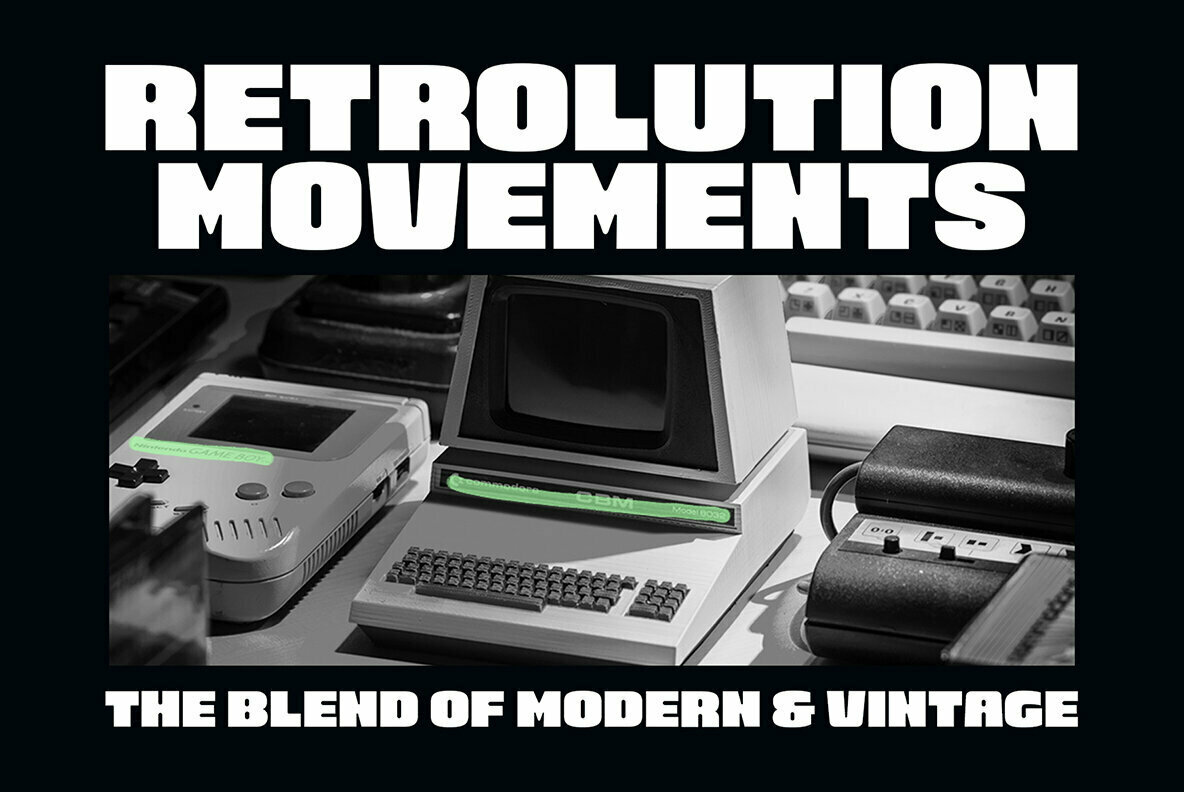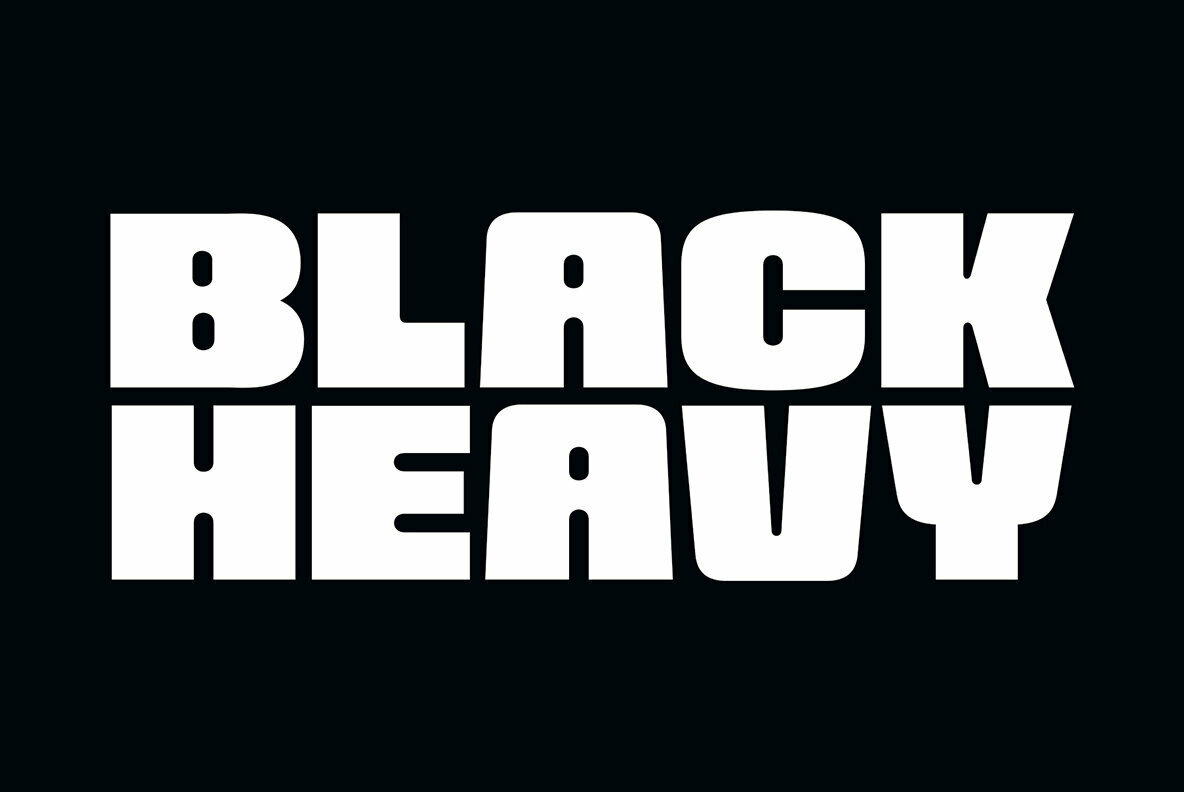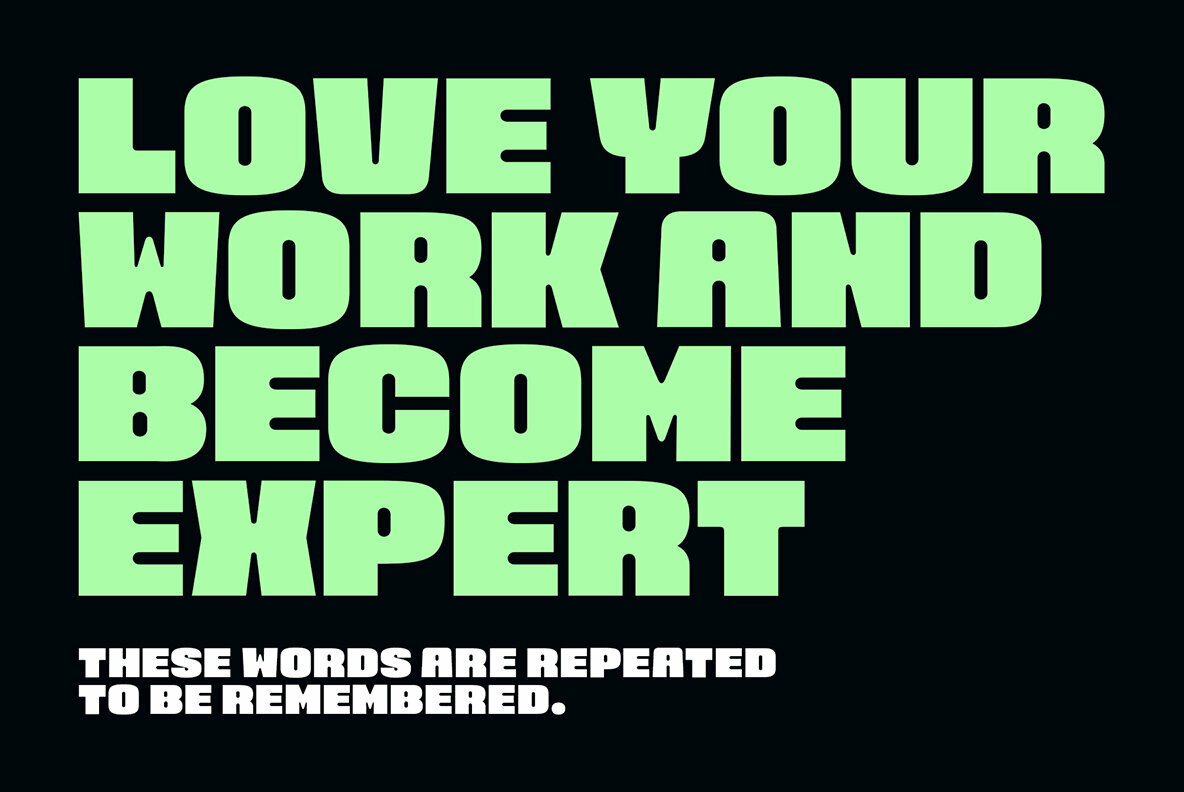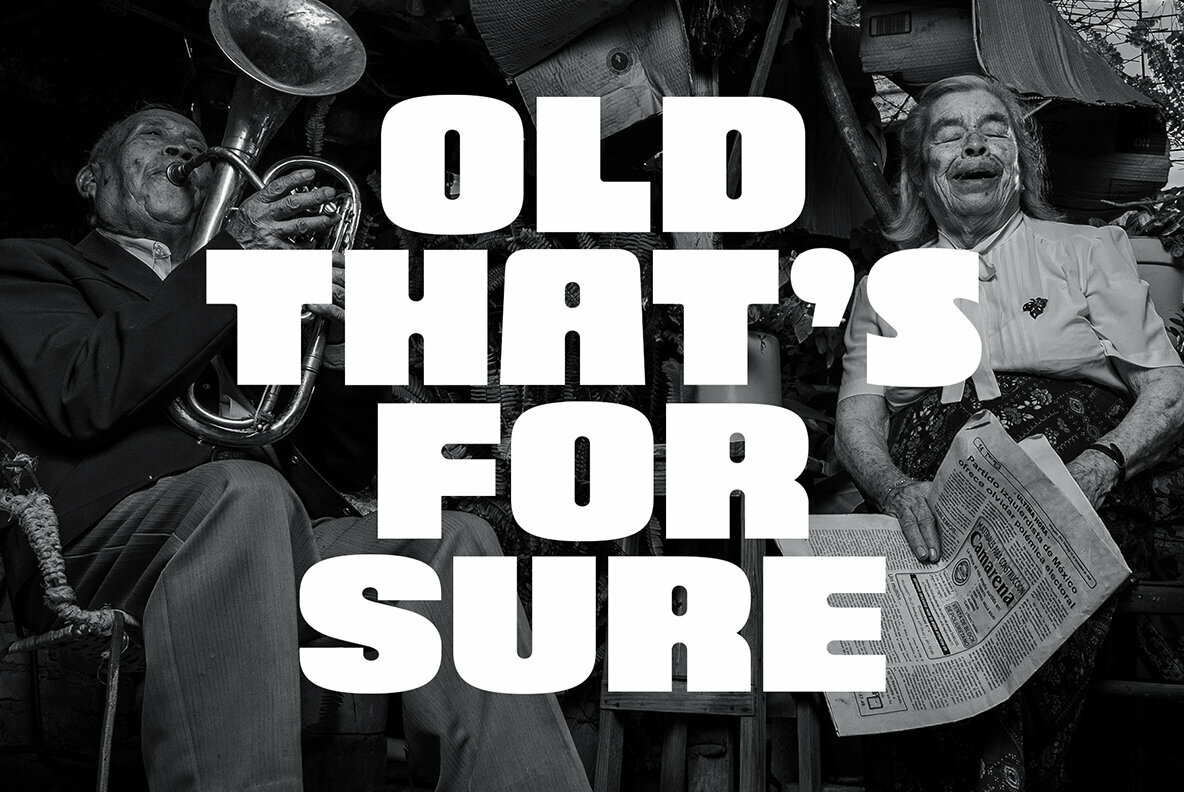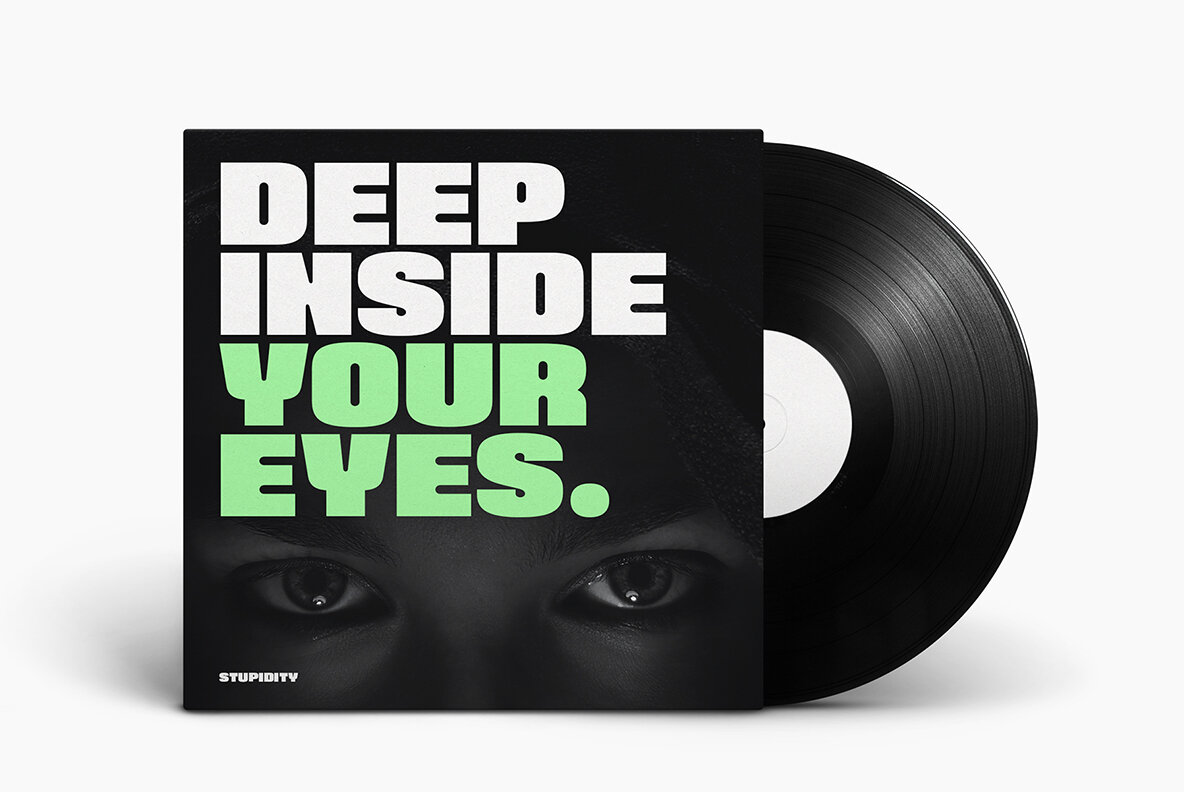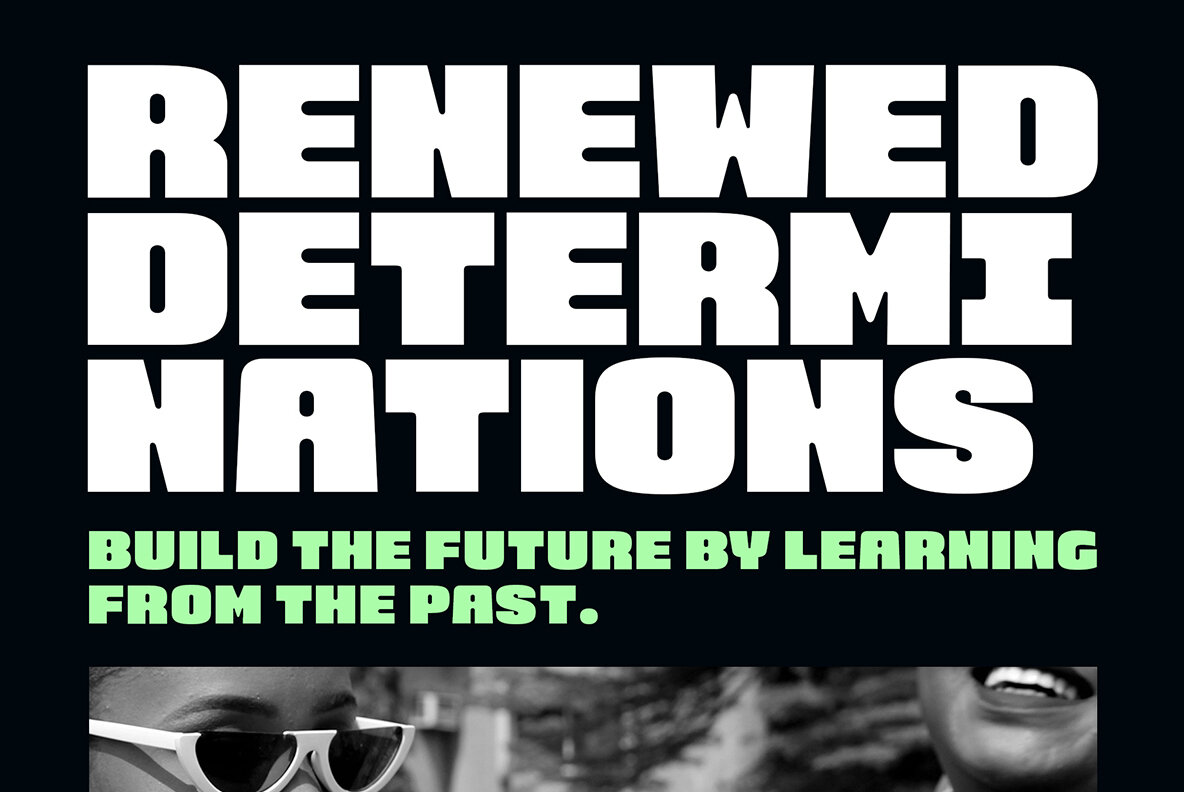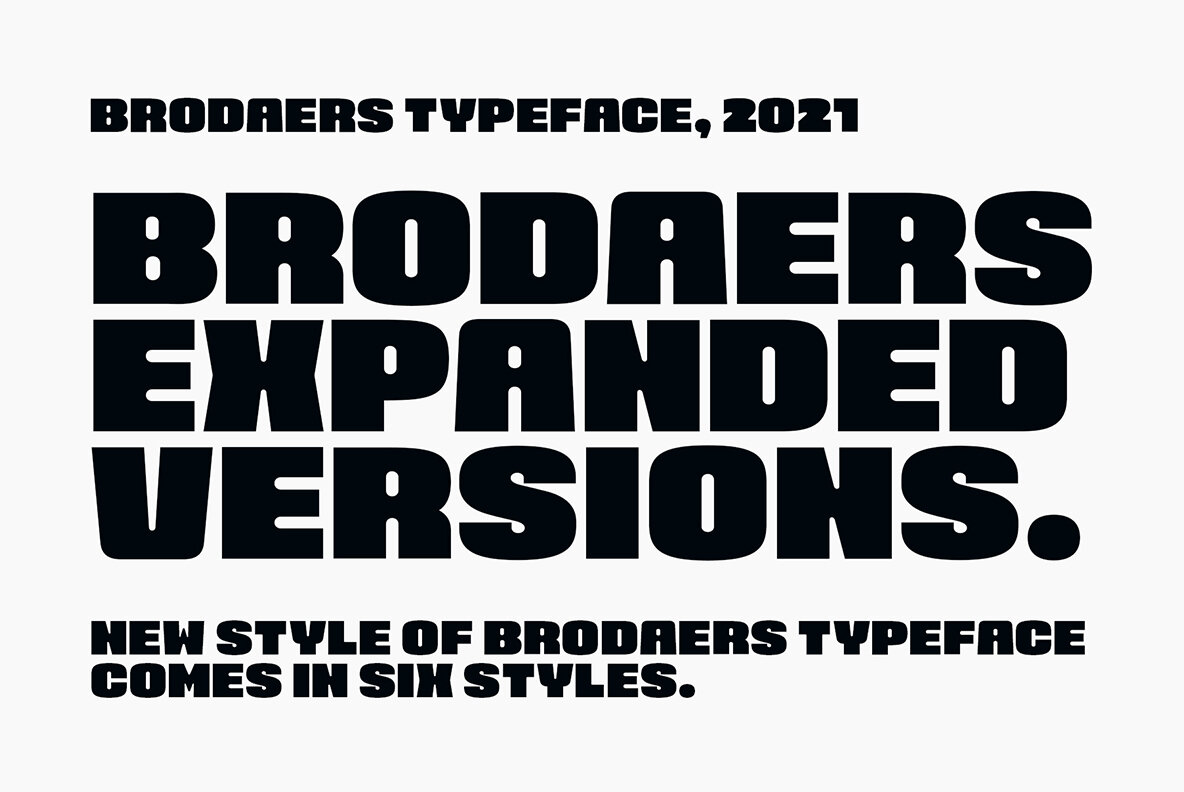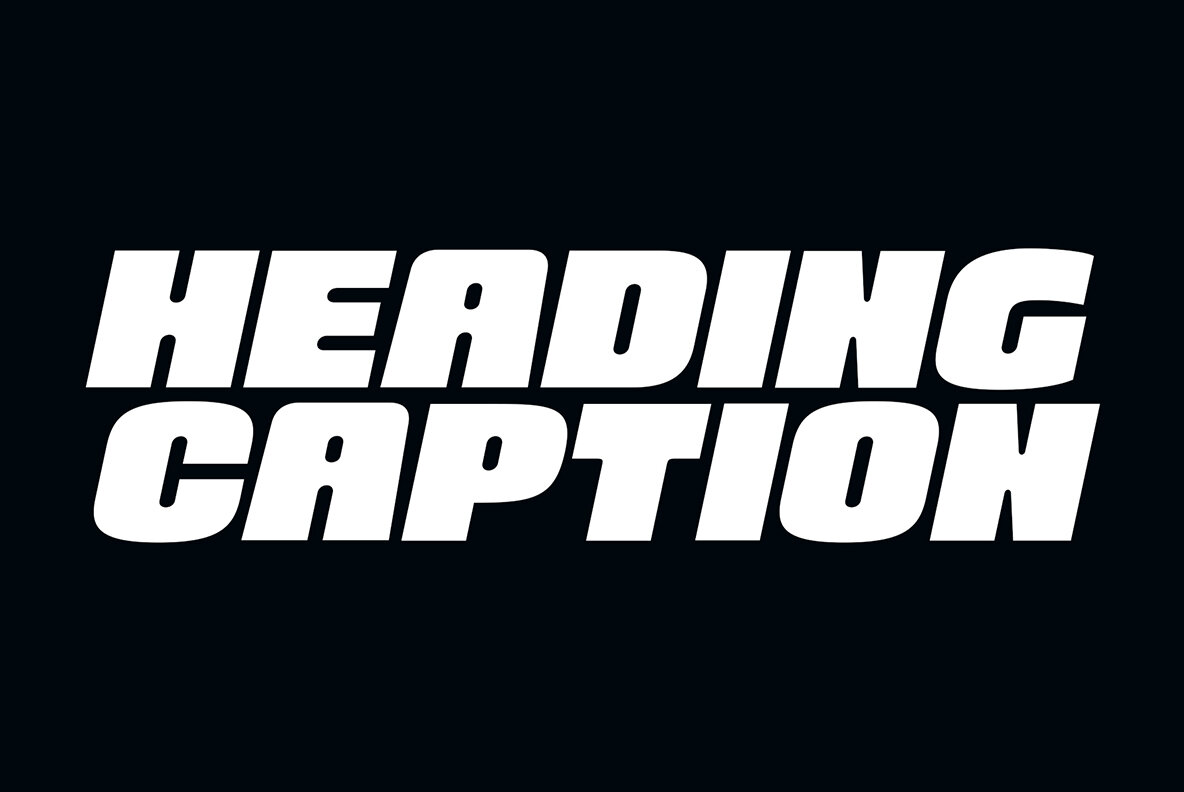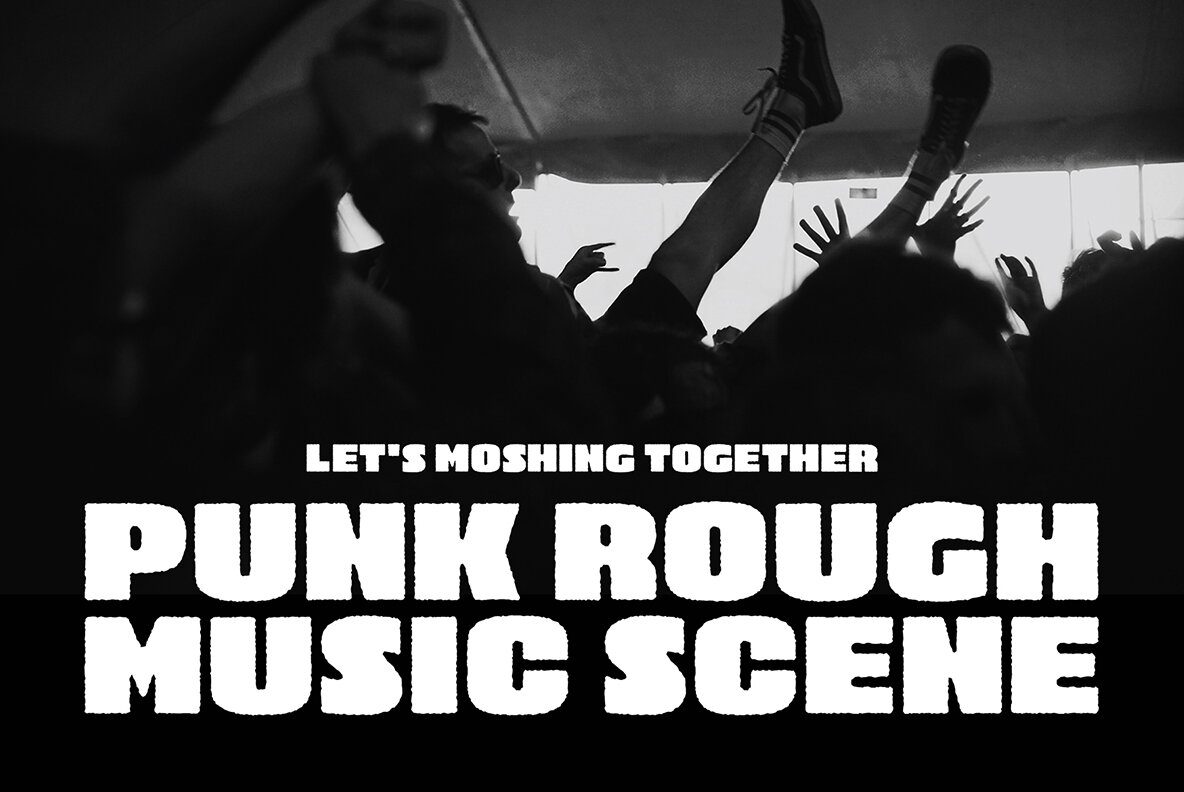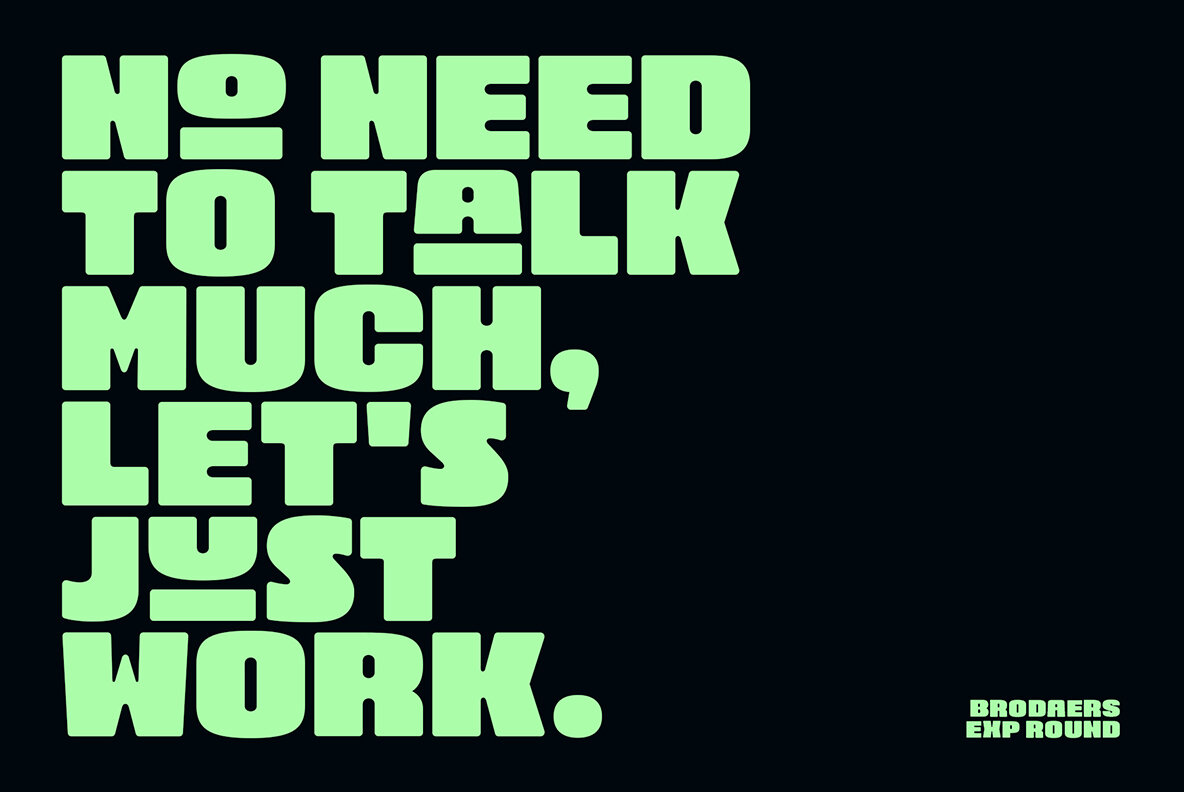
Brodaers Expanded Font
Brodaers Expanded is a display sans serif font. With the initial concept of the inner shape, made round. Comes in six styles, which makes it easier for the project you are working on, as well as alternative glyphs as an attractive option.
Brodaers Expanded is an expanded version of Brodaers typeface.
It comes with 400+ glyphs, which also include multilingual languages. Brodaers is perfect for headlines, branding, and many more.